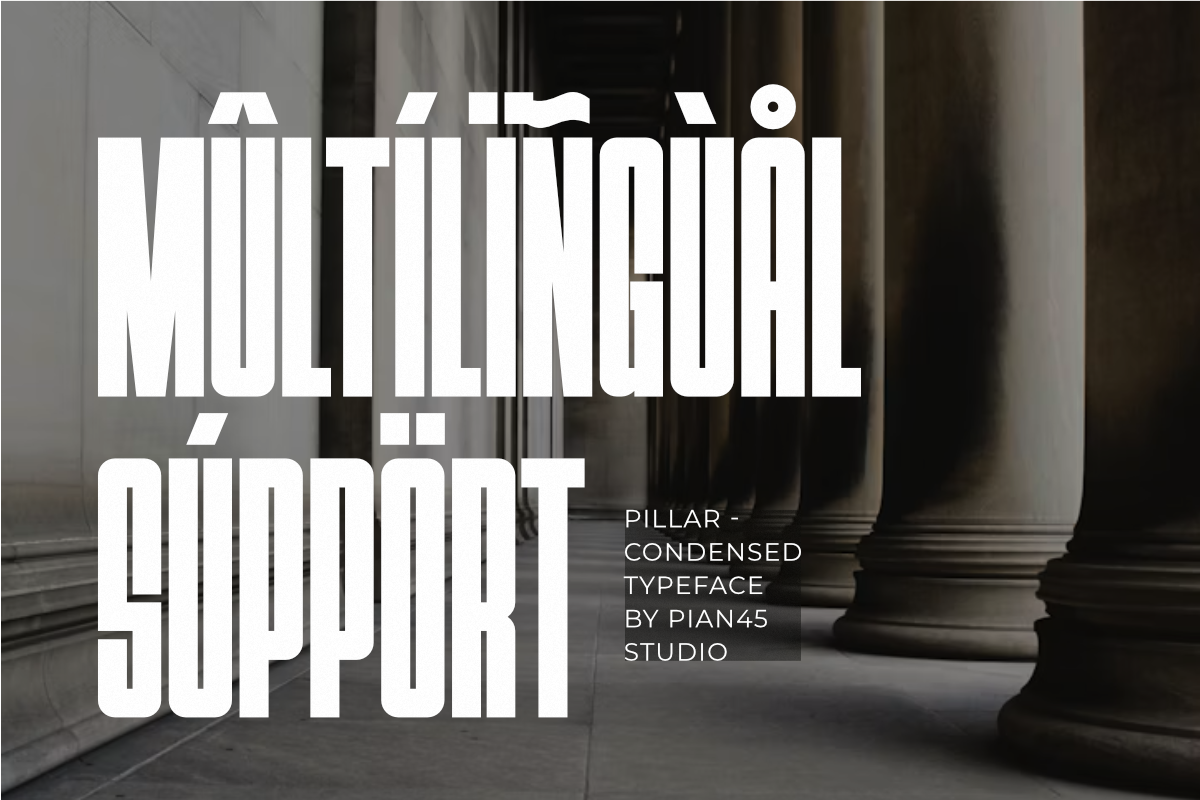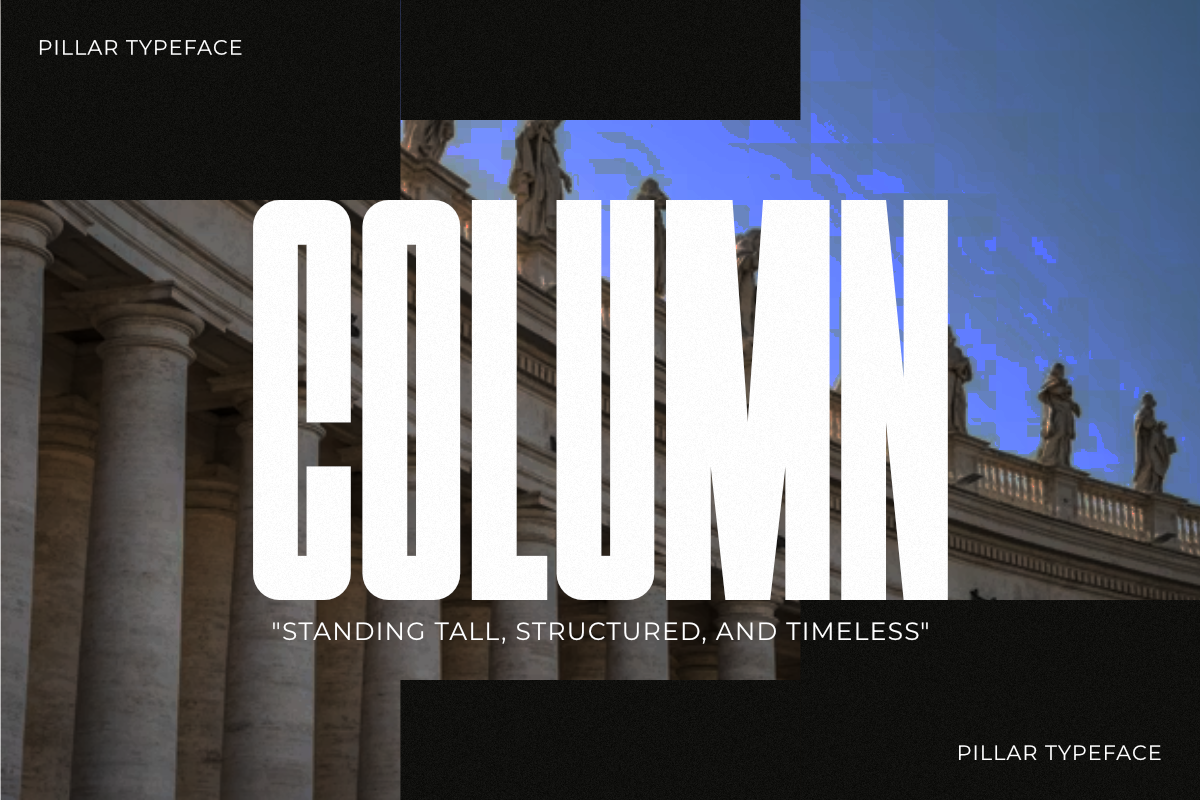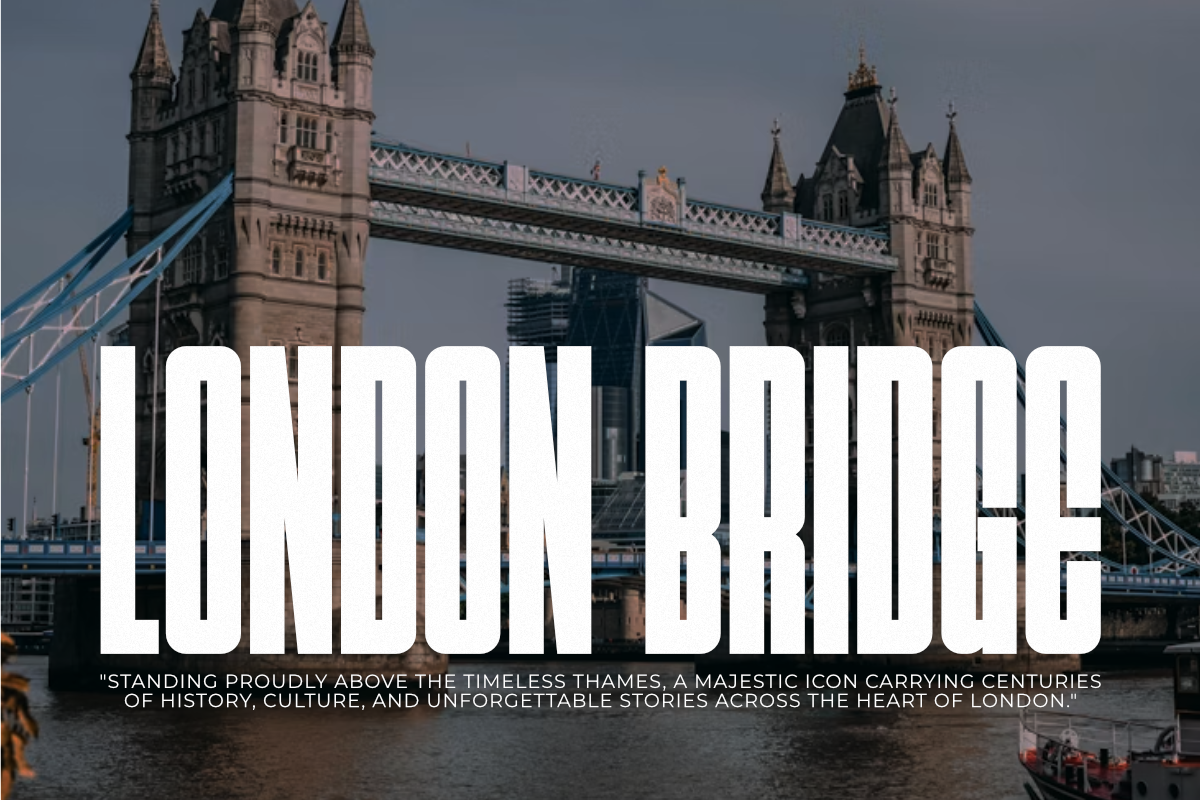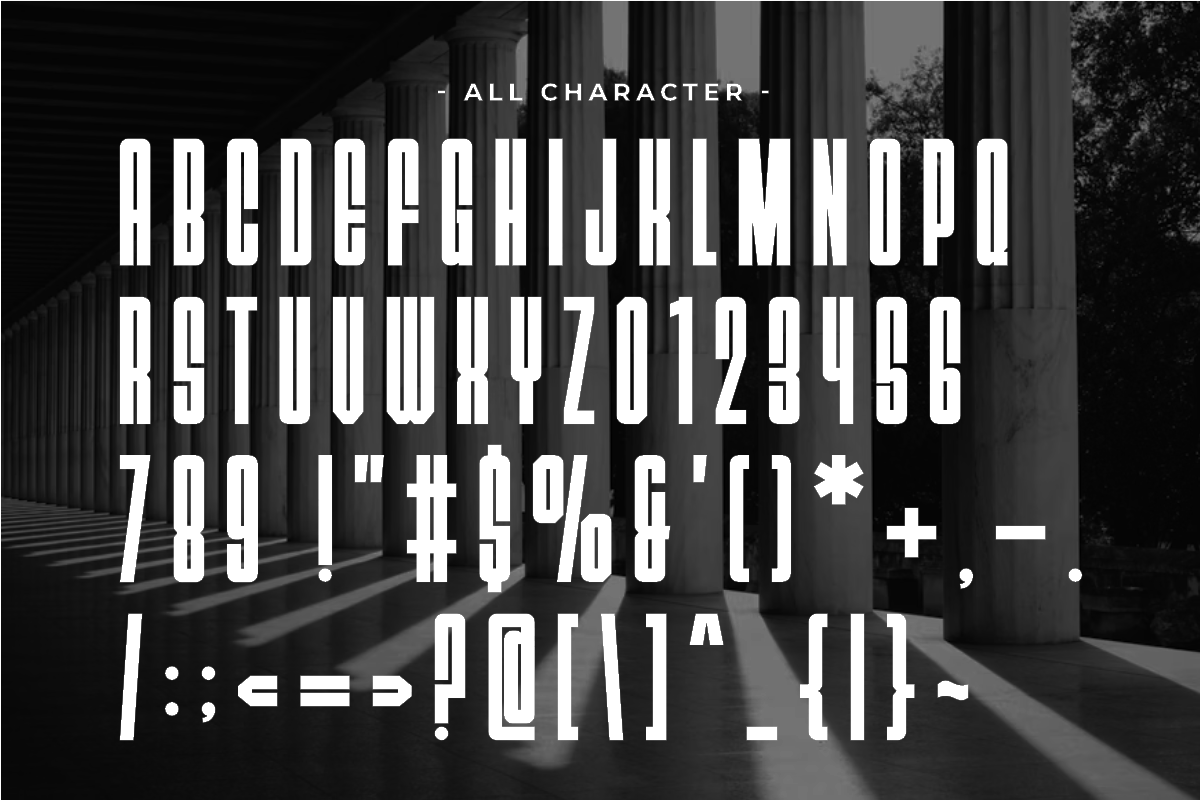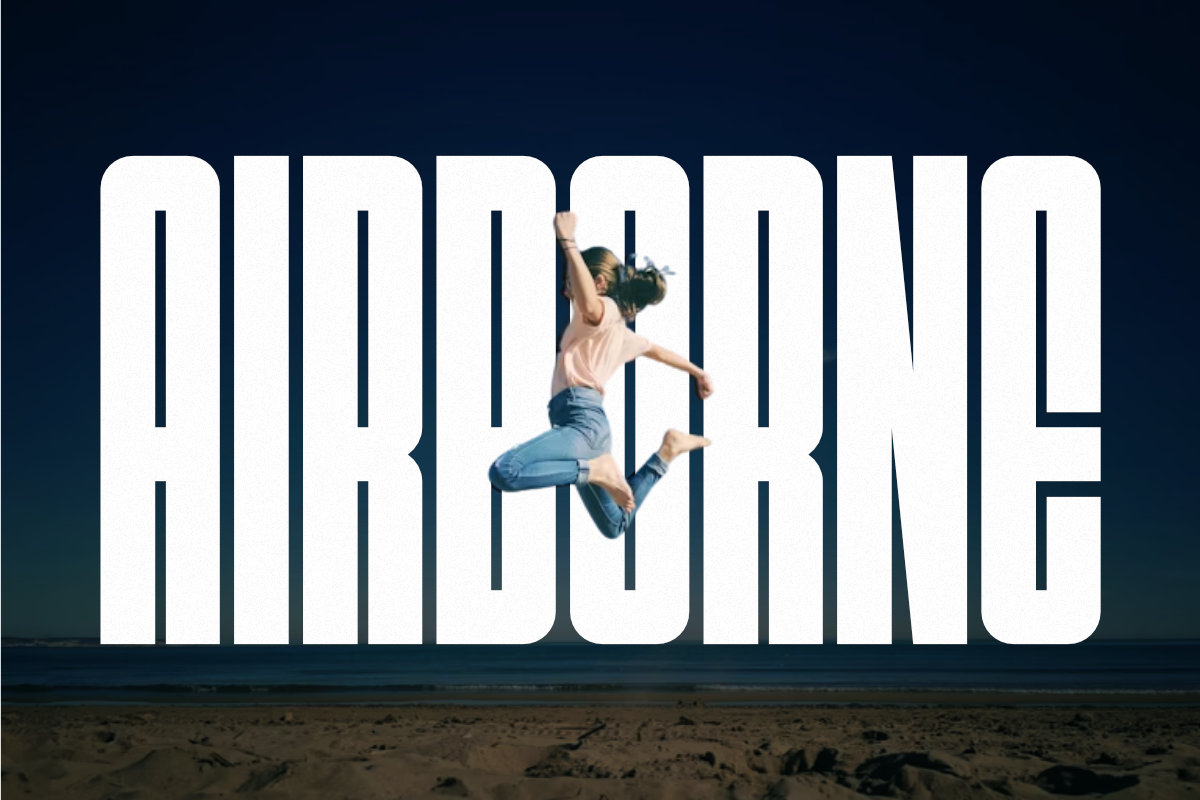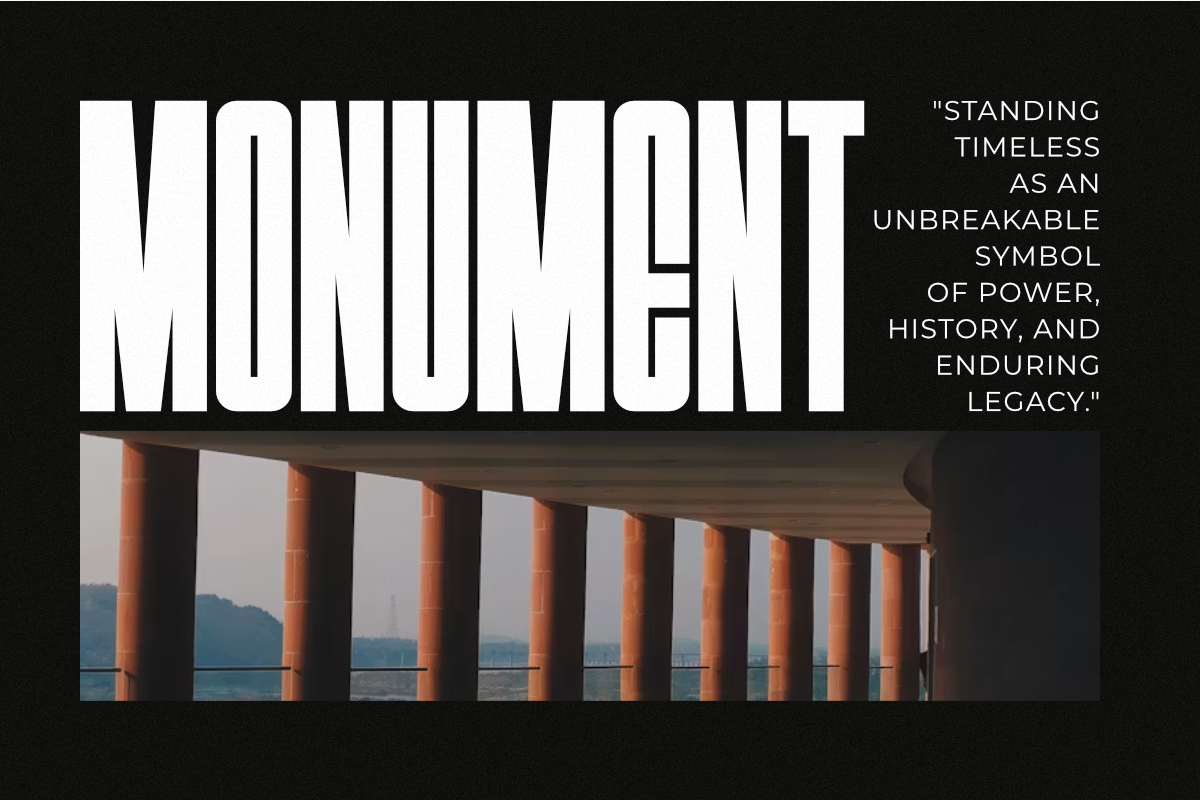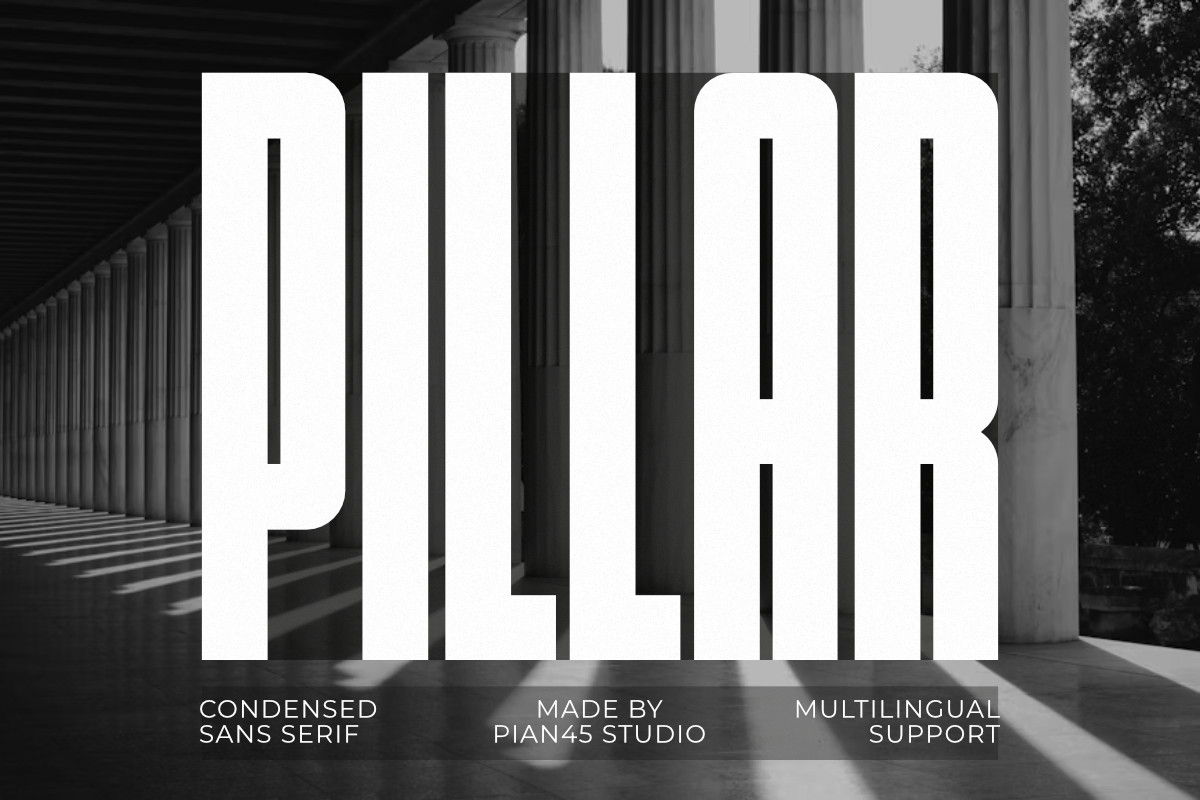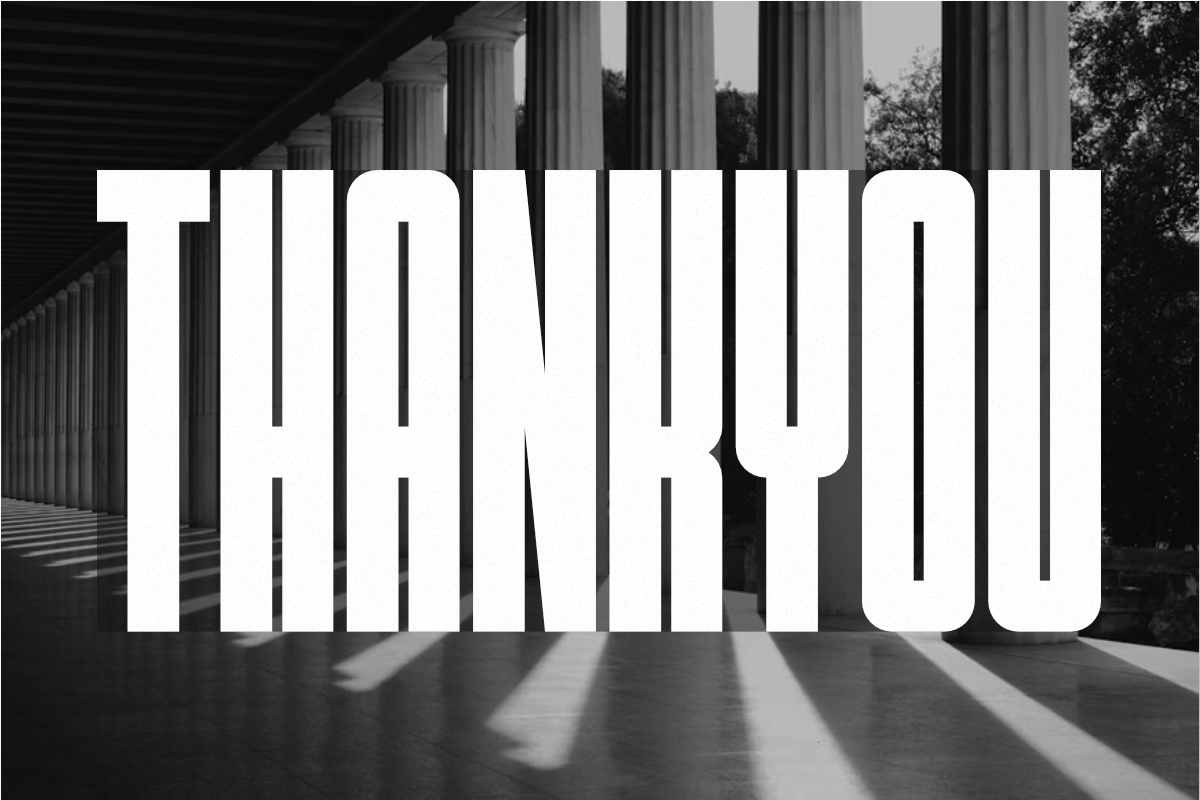
Pillar - Condensed Sans Serif Font
Pillar is a strong, tall, and high-impact Modern Condensed Sans Serif font engineered for ultimate strength and architectural balance. Featuring clean vertical lines, subtle smooth corner curves, and a robust, space-saving condensed typeface silhouette, this all-caps font is built for architectural branding, urban streetwear logos, modern editorial titles, and bold sports graphics. Its solid structural geometry ensures outstanding readability, making it the perfect tool for commanding headlines, magazine layouts, custom apparel, event posters, and high-visibility digital marketing banners.